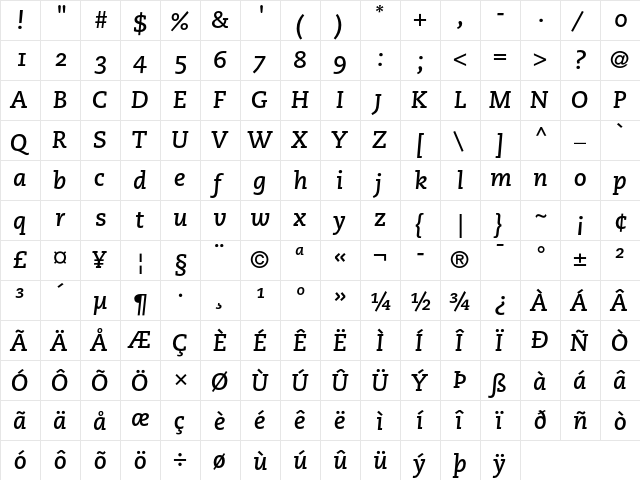
PMN Caecilia 76 Bold Italic OsF Font Preview
Design Context for PMN Caecilia Typeface
PMN Caecilia takes a measured approach to typography — its balanced proportions and neutral character make it a reliable workhorse for both digital and print work. The dynamic lean of this cut emphasises speed and emphasis in any layout. Its bold stroke weight gives it real presence on the page.
Pro Tip: Try PMN Caecilia for annotation and caption copy alongside an upright companion — the contrast in angle creates a dynamic but ordered typographic system.